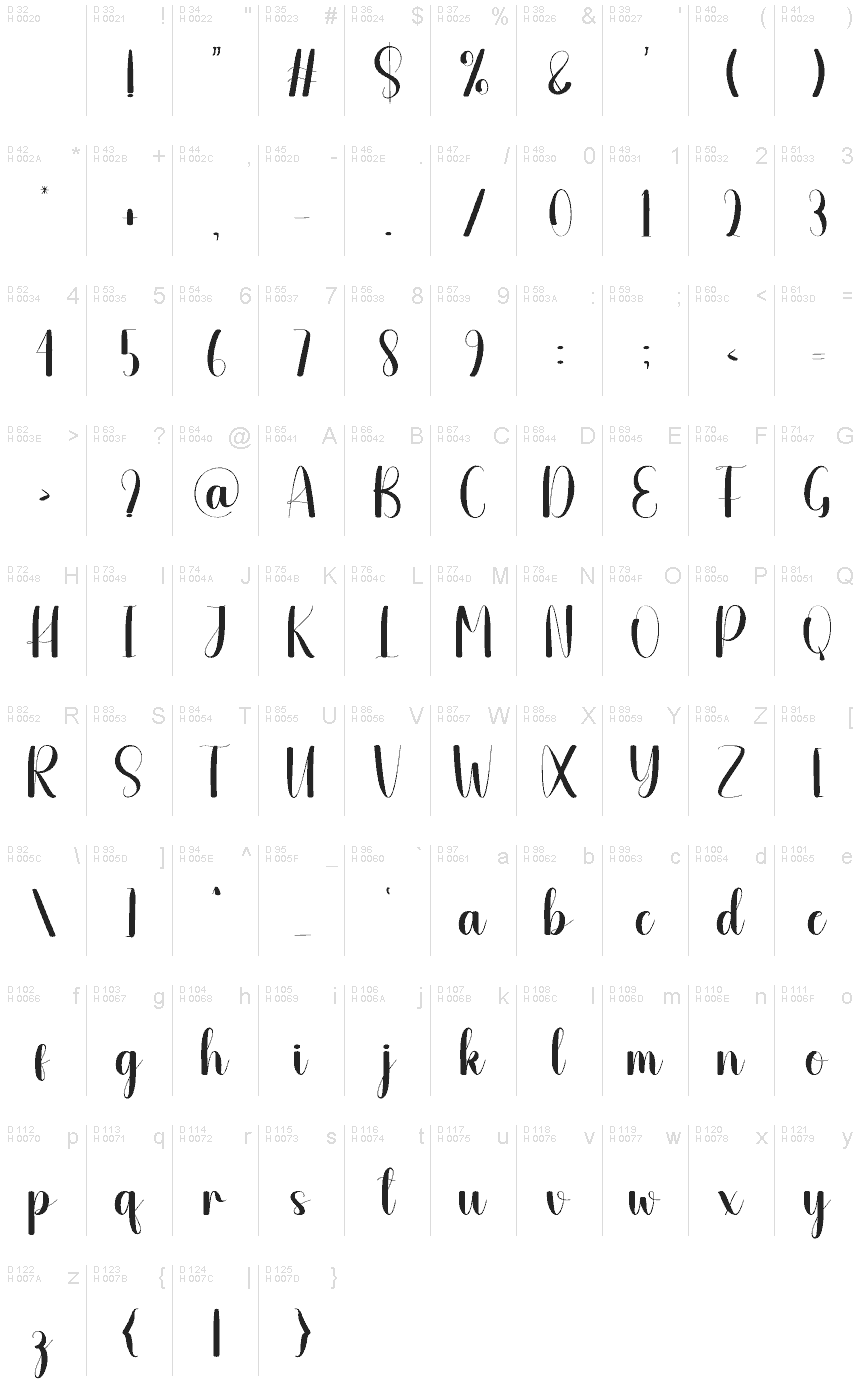
Headsed
Headsed font, created by Andi Moz, is an elegant calligraphy font that features a flowing script style. It combines a modern aesthetic with an expressive mood, making it ideal for projects seeking a stylish and contemporary feel. The harmonious curves and artistic touch give Headsed a sophisticated appearance suitable for both professional and personal projects.